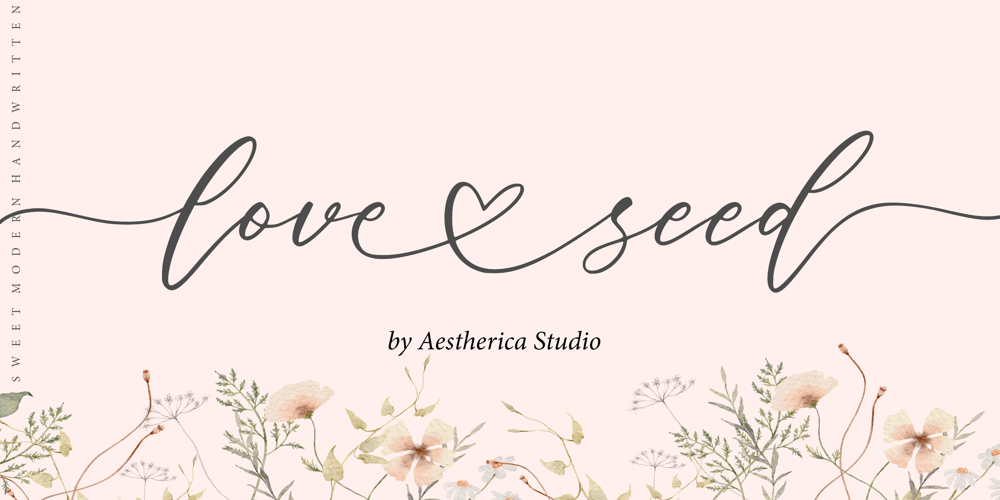
Love seed Font Family was designed by Muhammad Fathurrohman and published by Aestherica Studio. Love seed contains 1 styles and family package options. Love Seed is perfect for product packaging, branding project, magazines, social media, weddings, or just used to express words above the background.This font is PUA encoded, which means you can access all of the glyphs and swashes with ease!